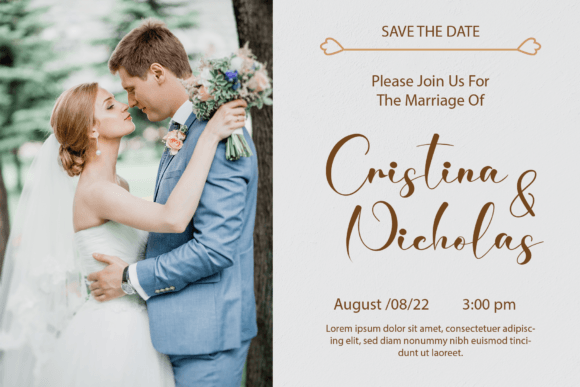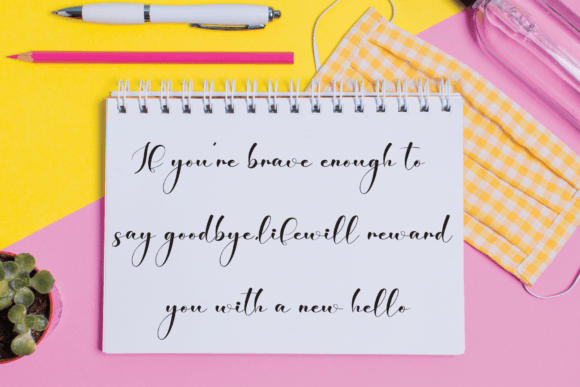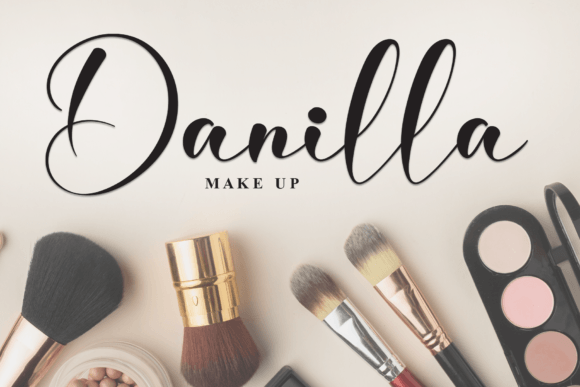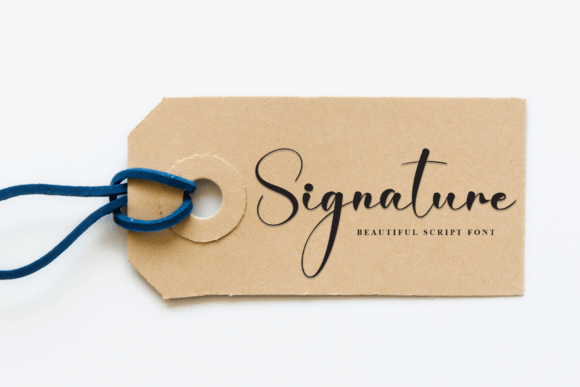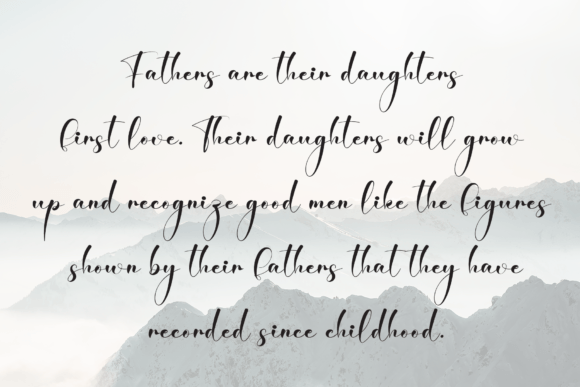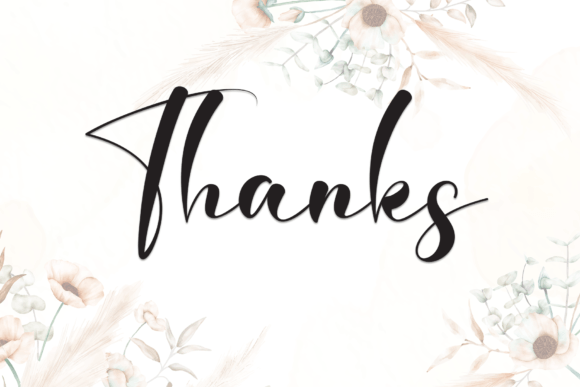
Introducing Angelina Decoration Font: Elevate Your Designs with Elegance
In the world of design, typography plays a crucial role in conveying the intended message and aesthetic appeal of a project. Whether you’re a seasoned designer or a crafty DIY enthusiast, finding the right font can make all the difference. If you’re on the hunt for a typeface that exudes delicacy, elegance, and fluidity, look no further than the Angelina Decoration Font. This beautiful, handwritten font is poised to transform your creative endeavors into stunning works of art.
The Essence of Angelina Decoration Font
Angelina Decoration is a delicate, elegant, and flowing handwritten font, meticulously crafted to bring a touch of sophistication to your designs. Its characters are beautifully crafted and well-balanced, making it an incredibly versatile typeface. Whether you’re working on a wedding invitation, a branding project, a packaging design, or any other creative venture, Angelina Decoration seamlessly integrates with a wide array of designs, enhancing their visual appeal.
Key Features of Angelina Decoration Font
- Delicate and Elegant: The font boasts a refined and graceful appearance, perfect for projects that demand a high level of sophistication.
- Flowing Handwritten Style: Its fluid, connected letters create a harmonious and natural look, adding a personal touch to your designs.
- Well-Balanced Characters: Each letter is carefully designed to ensure balance and consistency, making the font easy to read and visually appealing.
- Versatility: From romantic and feminine themes to more modern and minimalist designs, Angelina Decoration adapts effortlessly, making it a valuable addition to any designer’s toolkit.
Bringing Your Ideas to Life with Angelina Decoration
The true beauty of Angelina Decoration Font lies in its ability to elevate your most creative ideas into captivating visual experiences. Imagine adding this elegant typeface to:
- Wedding Stationery: Create breathtaking wedding invitations, save-the-date cards, and ceremony programs that set the tone for an unforgettable celebration.
- Branding and Packaging: Infuse your brand with a sense of luxury and refinement, perfect for high-end products, boutique labels, or artisan goods.
- Digital and Print Media: Enhance blog posts, social media graphics, flyers, and brochures with a touch of elegance, making your content stand out in a crowded digital landscape.
- DIY Projects: Add a professional and polished look to your handmade crafts, such as journals, planners, or artisanal goods, making them perfect for gifting or personal use.
Tips for Using Angelina Decoration Font
To maximize the impact of Angelina Decoration Font in your designs:
- Experiment with Colors: Pair the font with soft pastels, rich jewel tones, or metallic accents to enhance its elegance and adapt to your project’s color scheme.
- Mix and Match Fonts: Combine Angelina Decoration with complementary fonts to create visual interest and hierarchy in your designs.
- Play with Ligatures: Take advantage of the font’s ligatures to add a unique touch and fluidity to your text.
Angelina Decoration Font is more than just a typeface; it’s a design element that can transform your creative projects with its delicate, elegant, and flowing handwritten style. By incorporating this beautiful font into your work, you’ll not only enhance the aesthetic appeal of your designs but also convey a sense of sophistication and refinement. Whether you’re a professional designer or a crafting enthusiast, Angelina Decoration is poised to become your go-to font for bringing your most imaginative ideas to life.